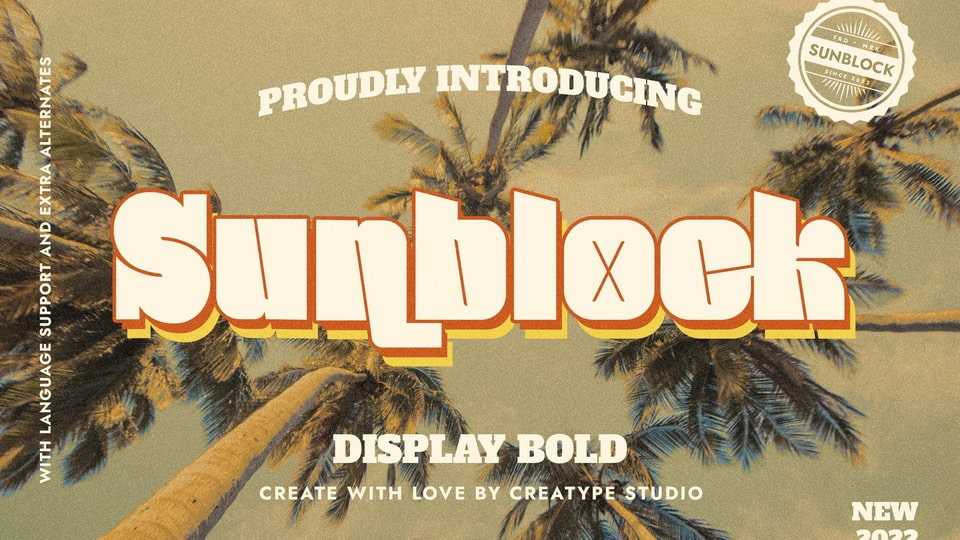
Download Sunblock font, a bold display typeface, full of groovy and retro power. Sunblock font is perfect for branding projects, logos, posters, social media, ads, packaging and any projects that need impactful look.